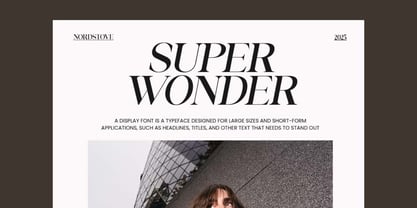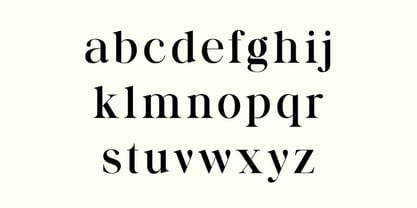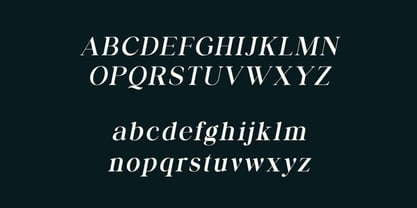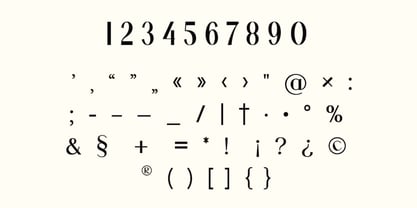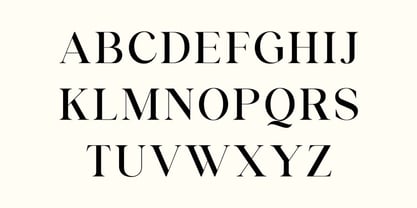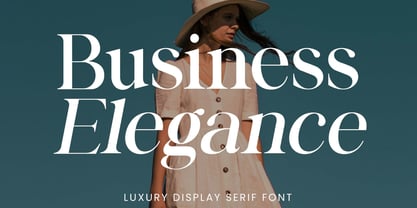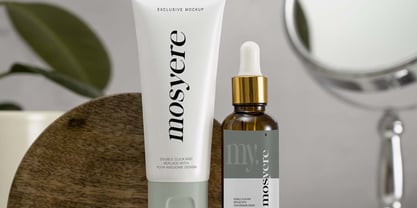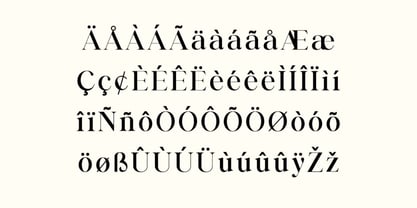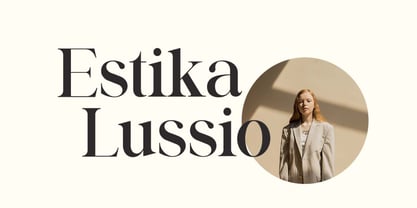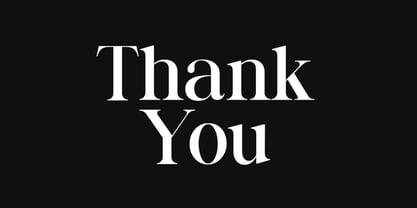
Business Elegance
The Business Elegance Font Family was designed by Hero and published by UICreative. Business Elegance contains 2 styles and family package options. More about this family
Business Elegance Luxury Display Serif Font. The modern display font feels beautiful classy, elegant, and stylish. This font is ideally suited for a wide variety of projects, such as signature, stationery, logo, wedding, typography quotes, magazine or book covers, website headers, branding, and more. Also, fashion-related branding or editorial design displays both masculine and feminine qualities.